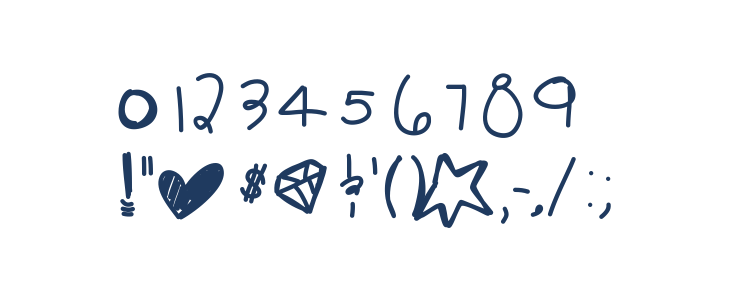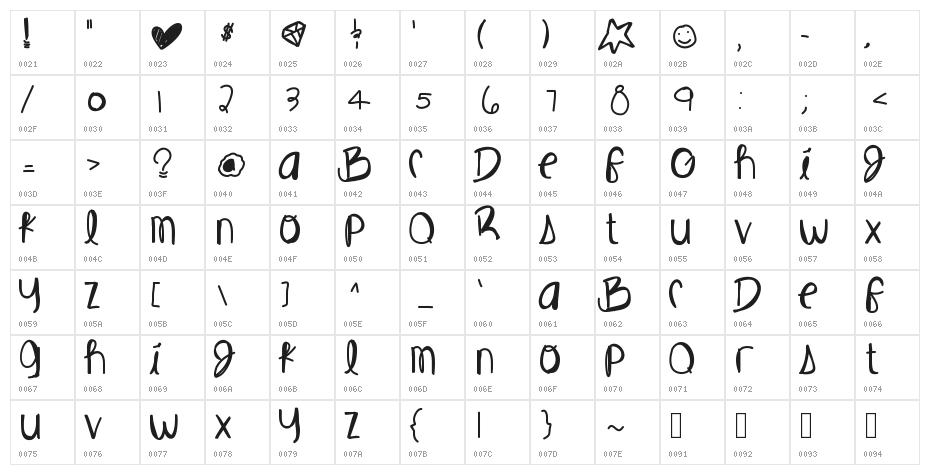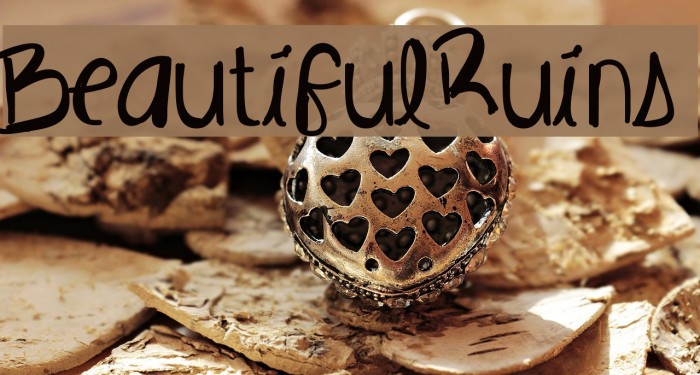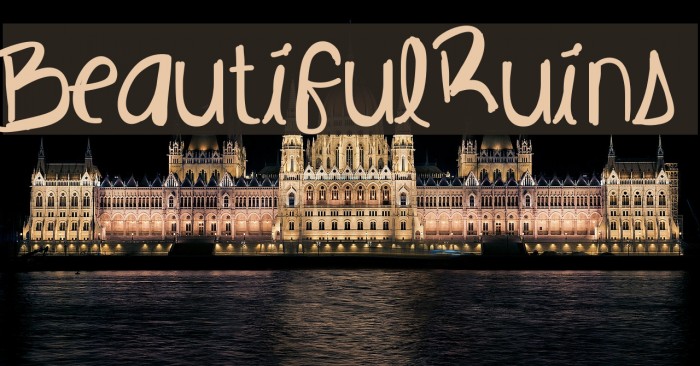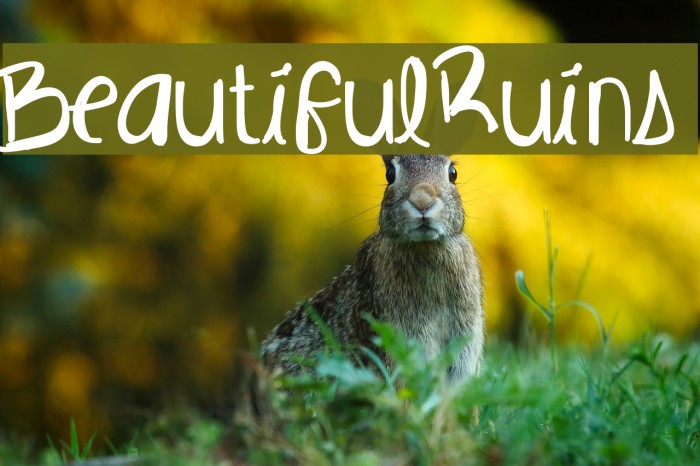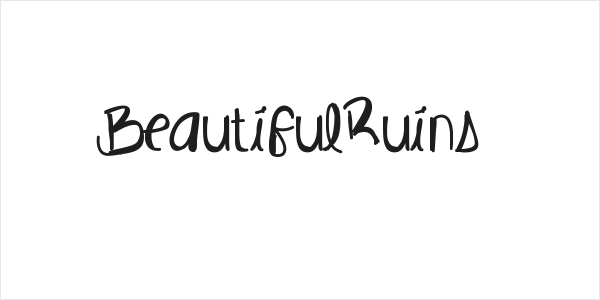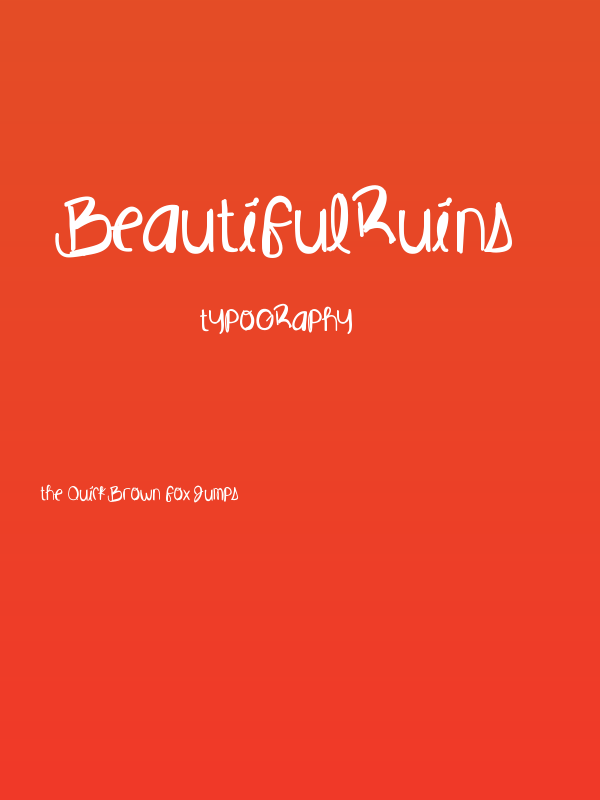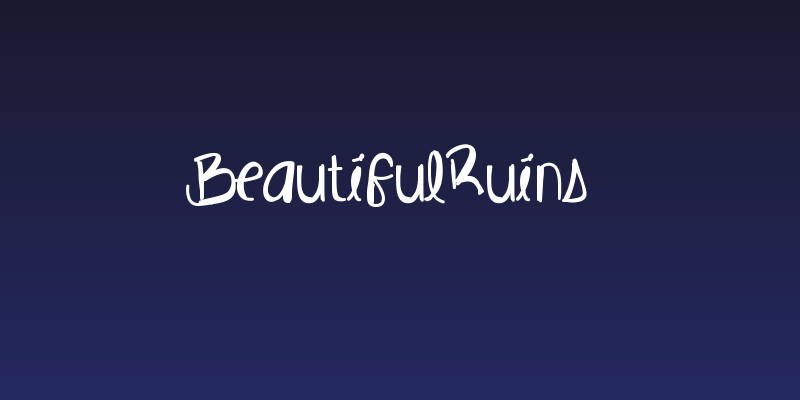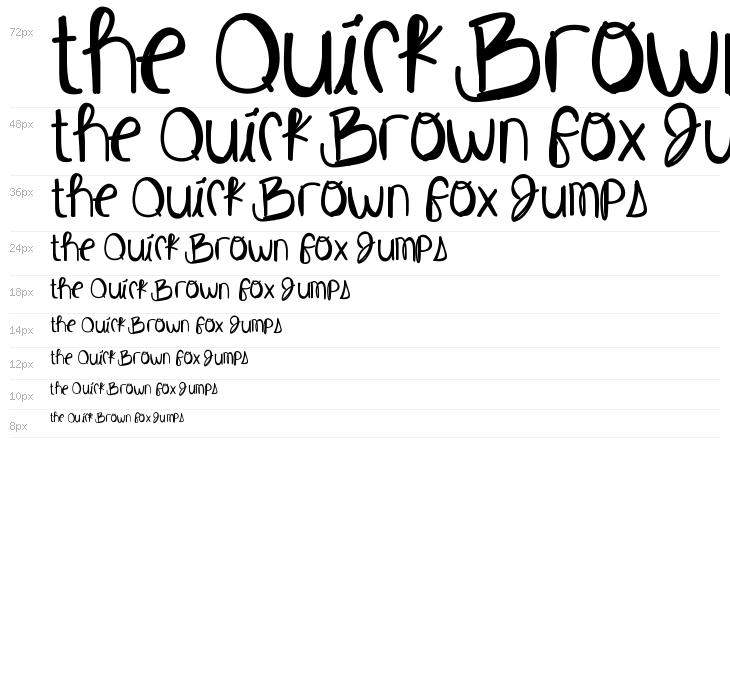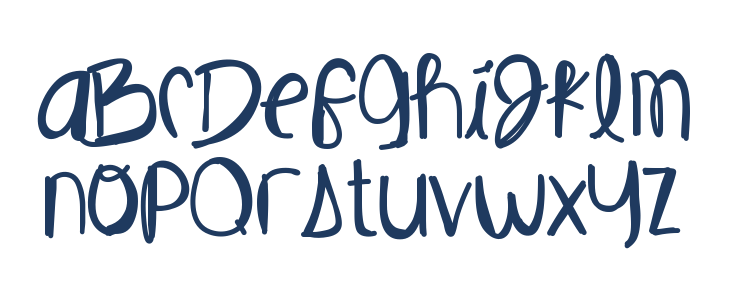
BeautifulRuins Font
BeautifulRuins Description
This font features a playful and whimsical handwritten style with a casual, artistic flair. The characters are bold and rounded, with a slight slant that gives a dynamic and lively appearance. The uppercase and lowercase letters maintain a consistent flow, while the numbers and special characters add a touch of creativity with their unique designs. The overall look is informal and friendly, making it suitable for projects that require a personal touch.
| Use Case | Logos, Headlines, Posters |
| Proposed Projects | Ideal for greeting cards, children's books, playful branding, and social media graphics. |